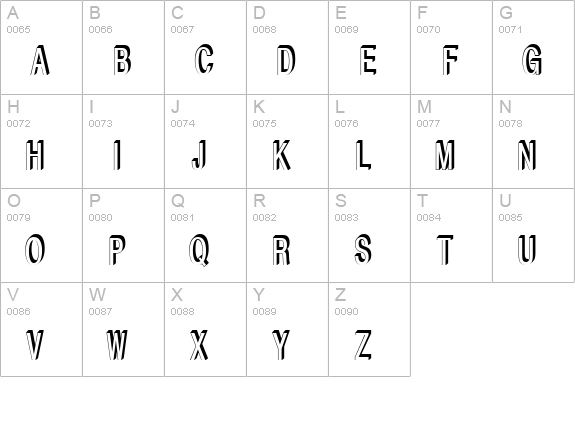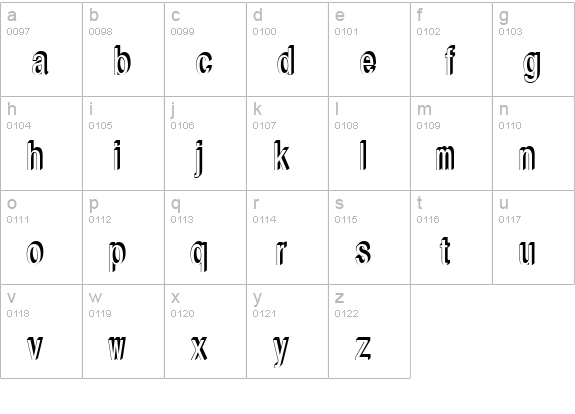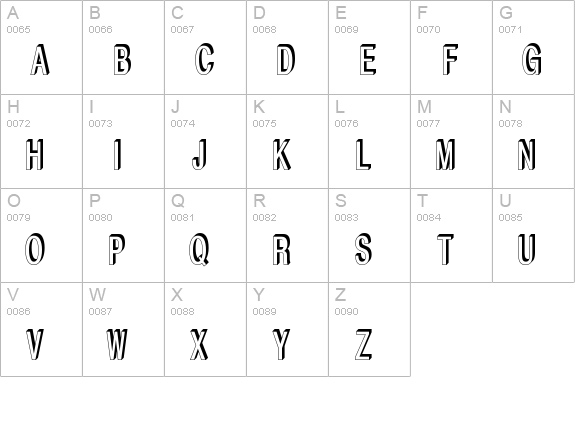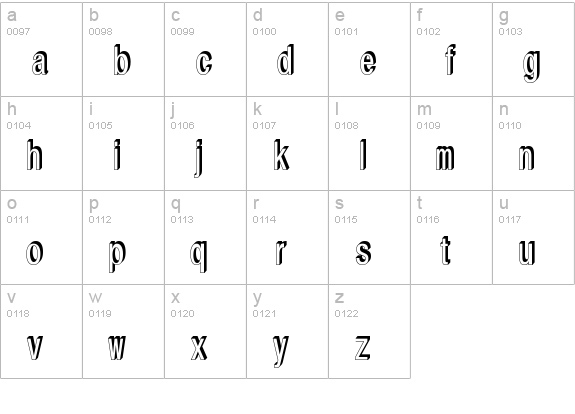
PMT-Relief Font Details
Introducing PMT-Relief font, a versatile and stylish typeface designed to bring a touch of elegance to your projects. This exquisite font features delicate letterforms with a unique relief effect that adds depth and sophistication to any design. Whether you're working on branding, packaging, invitations, or any other creative project, PMT-Relief font is sure to make a statement. What's even better is that this stunning font is available for free download at FontsMarket.com. Simply head over to the website and start using PMT-Relief font to enhance your designs with its distinctive charm and timeless appeal. Don't miss out on the opportunity to add this beautiful typeface to your font collection today!